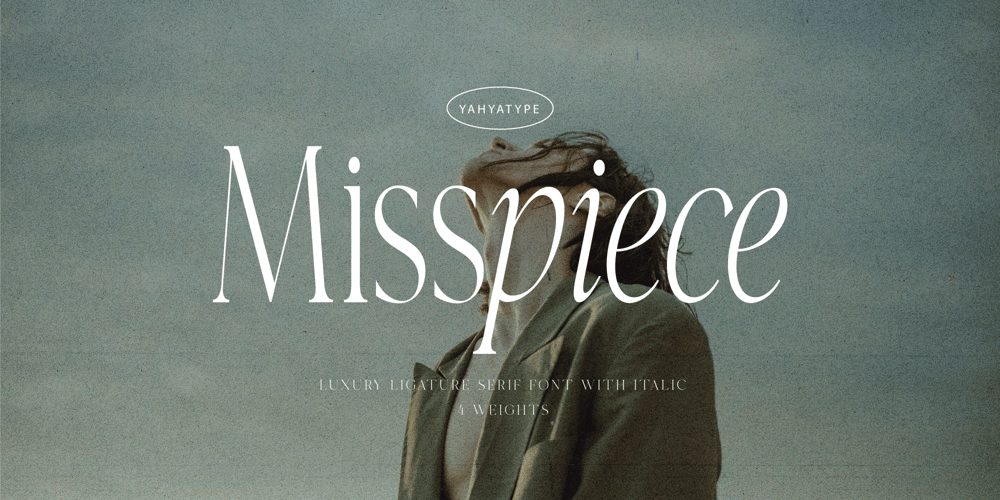
Misspiece Font Family was designed by Yahya Qara and published by Yahya Type. Misspiece contains 4 styles and family package options. Meet Misspiece, a luxury ligature serif font with italic.Misspiece combines a vintage look with a modern flair to add more elegance to your project. This font can be used in high-end branding, logo designs, magazines, product packaging & invitations, wedding designs, social media posts, advertisements, labels, photography, and watermark…WHAT’S INCLUDED? Misspiece Regular (uppercase & lowercase) Misspiece Italic (uppercase & lowercase) Misspiece Condensed (uppercase & lowercase) Misspiece Condensed Italic (uppercase & lowercase) Numbers & punctuation Ligature & Huge Stylistic alternate Multilingual support. Still have a question? Send me a message and I’ll be happy to answer! qura.yahya@gmail.